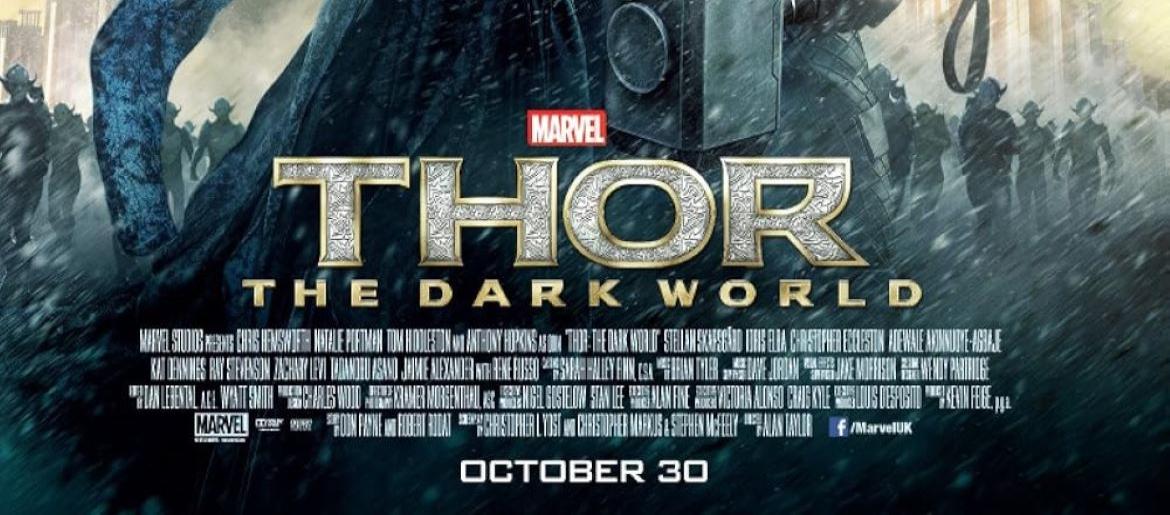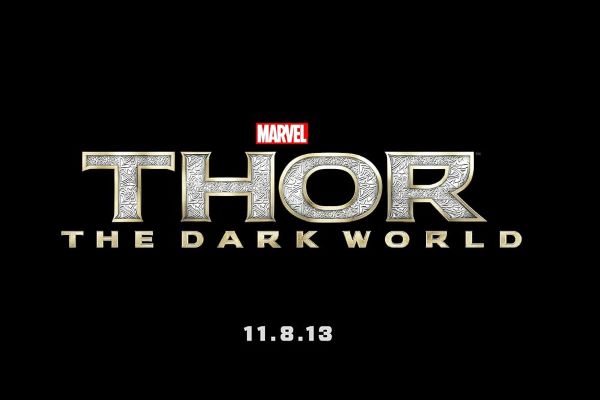
Thor The Dark World Font
What Font is Thor The Dark World?
The Thor: The Dark World Font uses Modi Thorson, a bold and powerful typeface that perfectly captures the strength and mythic grandeur of the Marvel hero. Designed by Iconian Fonts, this font embodies the Norse-inspired aesthetic of Asgard with its sharp serifs, angular lines, and commanding presence. It’s a free font that brings the same heroic and ancient tone seen in the movie’s title design, making it ideal for fantasy-themed artwork, fan posters, or gaming titles.
About Thor: The Dark World
Thor: The Dark World (2013) is the second installment in Marvel’s Thor series, directed by Alan Taylor. The film stars Chris Hemsworth as Thor, who joins forces with Loki to save the Nine Realms from the dark elf Malekith and his army. Blending mythological grandeur with cosmic adventure, the movie deepens the world of Asgard, while its typography — through the Modi Thorson font — visually reflects the epic and ancient tone of the story.